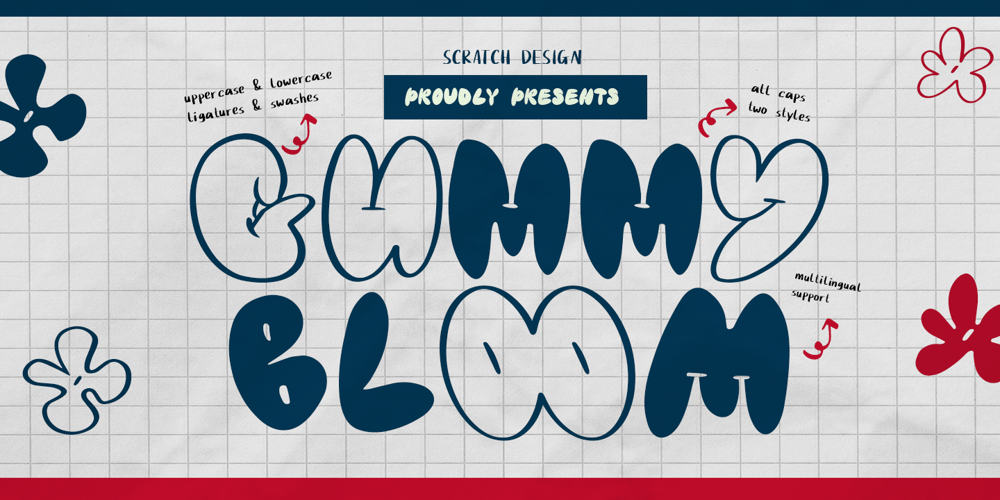
Gummy Bloom Font Family was designed by Gitayogi Irhandi and published by Scratch Design. Gummy Bloom contains 2 styles and family package options. Gummy Bloom is a charming, handcrafted font designed to add a playful, bubble, and bold touch to your projects. Available in two unique styles—Gummy Bloom outline and Gummy Bloom fill—this font offers versatility and creativity in your design work. Gummy Bloom features two variations of uppercase letters, giving you more options to customize your text and create dynamic, eye-catching compositions. The font also includes unique ligatures that enhance its handcrafted feel and add a special flair to your typography. This chunky, vibrant font is perfect for a variety of applications. Whether you’re designing posters, advertisements, social media graphics, or any project that needs a fun and lively style, Gummy Bloom is your go-to choice. Its delightful appearance and versatile options make it ideal for creating memorable and engaging designs that stand out. Bring your creative ideas to life with the playful charm of Gummy Bloom!Includes: ALL CAPS (2 styles – OUTLINE and FILL) Numbers and punctuation Ligatures Swashes Multilingual support We hope you enjoy our font!